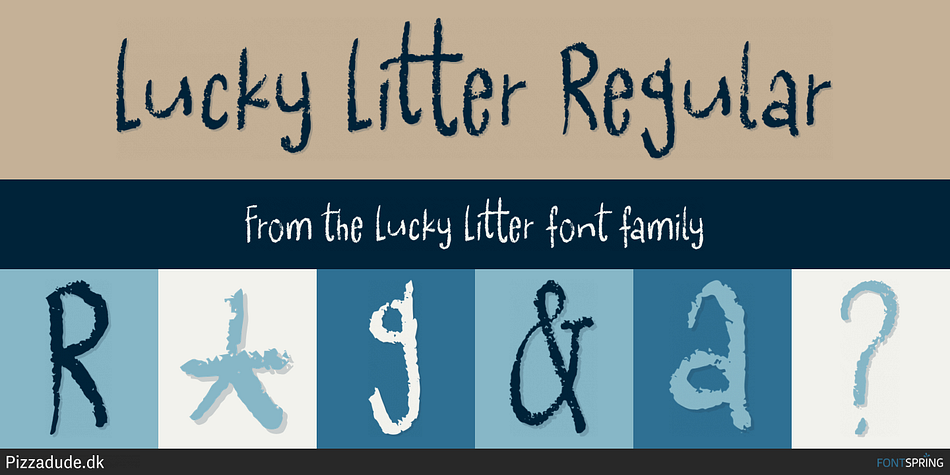
Lucky Litter Regular
Designed by Jakob Fischer, Lucky Litter is a hand drawn and kids font published by Pizzadude.dk.
Talk about funny and wild - and cute on top! Lucky Litter was handdrawn with crayons, and leaving very little digital restauration.
You got your full multilingual set and ligatures for double letters + alternative caps (note the 2 different L’s in the preview!)